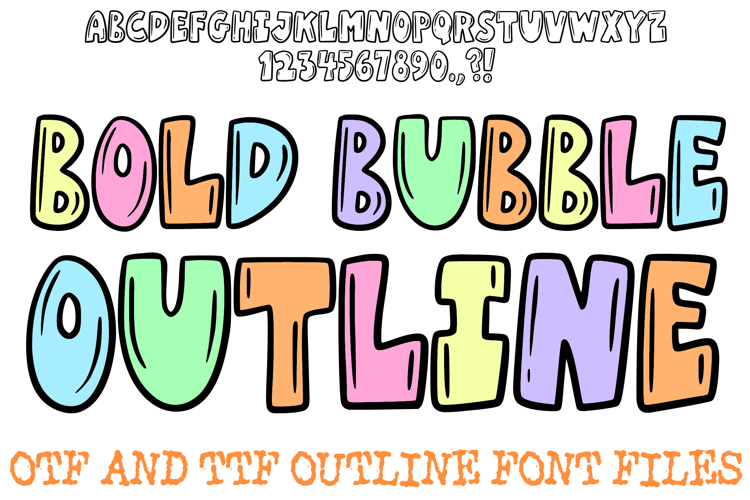
Bold Bubble Font Doodle Lettering Comic Cartoon ABC OTF
Make your message pop with the Bold Bubble Outline Font! This versatile, hand-drawn display alphabet features thick, chunky characters with a clean, professional outline that ensures your text stands out on any background. It is the perfect choice for eye-catching headlines, fun classroom decor, personalized stickers, and high-impact branding for children’s products.
The bold weight and smooth, rounded shapes provide maximum readability while maintaining a playful, artisan feel. Whether you're creating printable worksheets, quirky apparel designs, or vibrant social media graphics, the Bold Bubble Outline Font delivers a professional, polished look that captures attention instantly.
Thick, Defined Outlines: The heavy black borders make every character jump off the page, perfect for layering over colors or patterns.
Chunky Bubble Silhouette: The wide, rounded letterforms provide a friendly and approachable aesthetic for all ages.
Hand-Drawn Authenticity: The subtle, organic lines give your work a custom feel that standard digital fonts can't replicate.